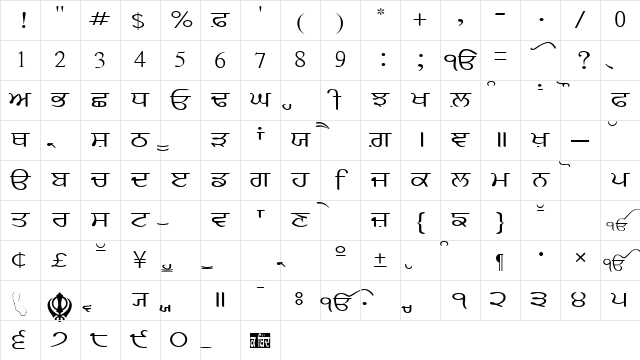
AnmolKalmi Regular Free Font
AnmolKalmi Regular
Complete AnmolKalmi Regular glyph index. Displaying only characters natively supported by AnmolKalmi Regular font.
Design Context for AnmolKalmi
AnmolKalmi is a composed and adaptable typeface that performs quietly and consistently across a wide range of design contexts.